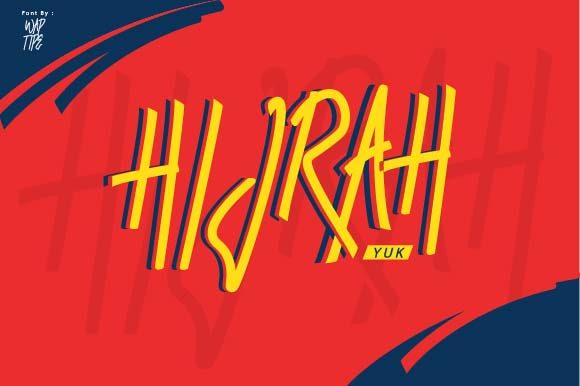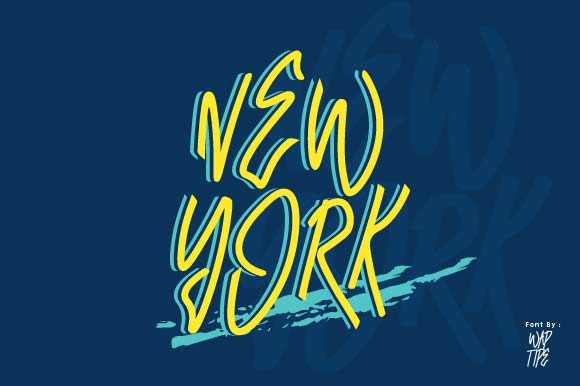
Introduction to Merden Font
Have you ever been stuck in a creative rut, searching for the perfect font to elevate your project to the next level? You know, that moment when everything seems to be missing that special something – until you stumble upon a font that changes everything. For designers, finding the right font can be a game-changer, and that’s exactly what the Merden Font offers.
This high-quality display font boasts a graffiti style that’s perfect for adding an urban touch to your creative project. With its unique and edgy design, Merden Font is a valuable resource for designers looking to make a statement. Whether you’re working on a design project or simply want to add some flair to your social media posts, this font is sure to impress.
Key Features of Merden Font
- High-quality design for creative projects: Merden Font is designed to provide a unique and professional touch to your designs.
- Unique characteristics: Merden Font features a unique blend of modern and vintage elements, making it an excellent choice for designers looking to add a touch of elegance to their creative projects.
Honest Review: Merden Font
As a designer, I’m always on the lookout for high-quality design resources to enhance my creative projects. Recently, I came across the Merden Font, and I’m excited to share my honest review with you.
What works well: ✨ The Merden Font has a unique and modern design that makes it perfect for digital products, logos, and branding materials. The font is also available for free download, making it a great addition to any design resource library. I love the transparent background feature, which allows for seamless integration with any design.
Limitations: ⚠️ One of the limitations of the Merden Font is its limited character set. While it’s great for short phrases and logos, it may not be suitable for longer body text. Additionally, the font’s modern design may not be suitable for traditional or vintage-themed projects.
Overall impression: I’m impressed with the Merden Font’s versatility and modern design. While it has some limitations, it’s a great addition to any designer’s toolkit. If you’re looking for a high-quality font for your creative project, the Merden Font is definitely worth considering.
- Unique and modern design
- Transparent background feature
- Not suitable for longer body text
- May not be suitable for traditional or vintage-themed projects
The Merden Font is ideal for a variety of creative projects, including:
- Print design